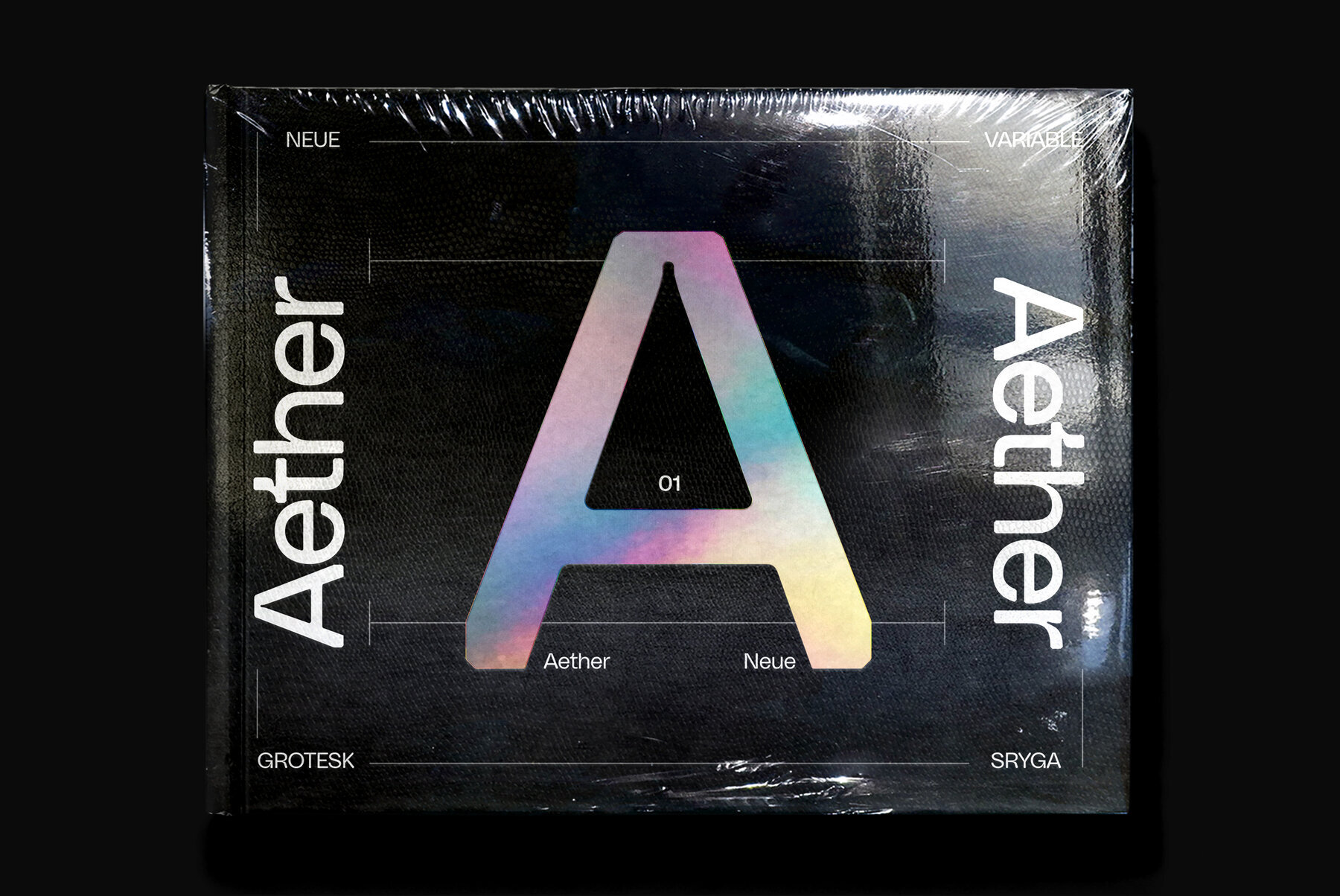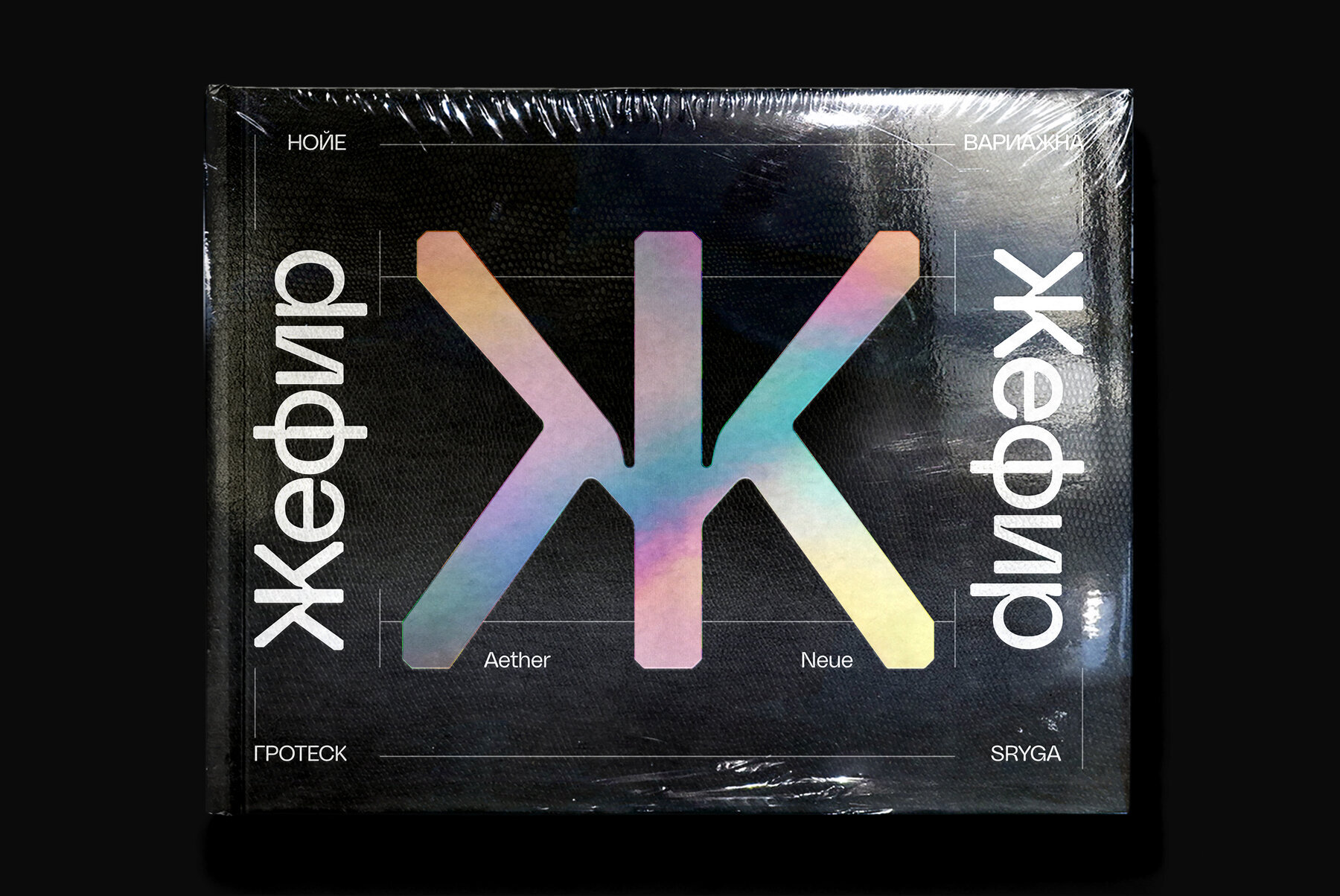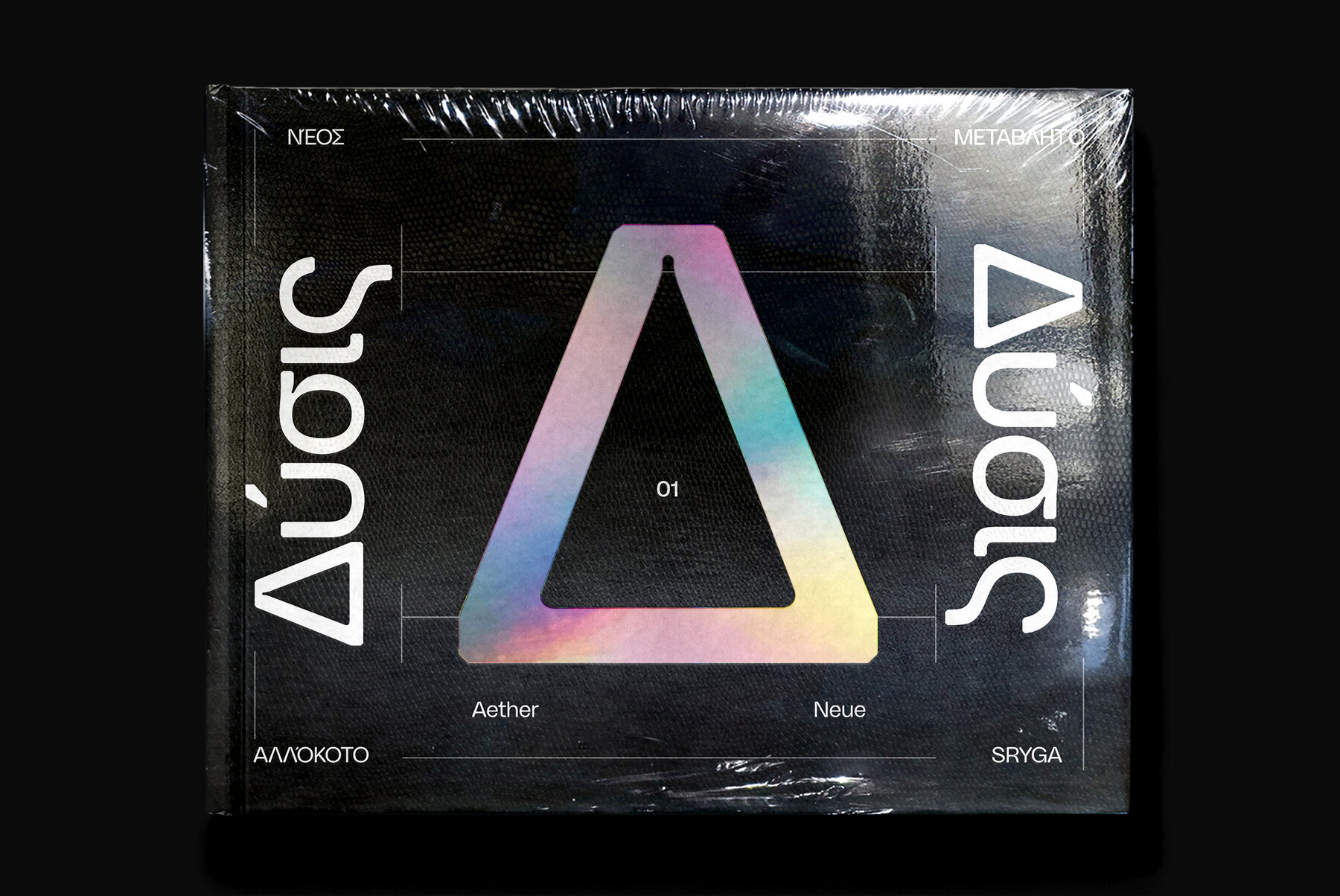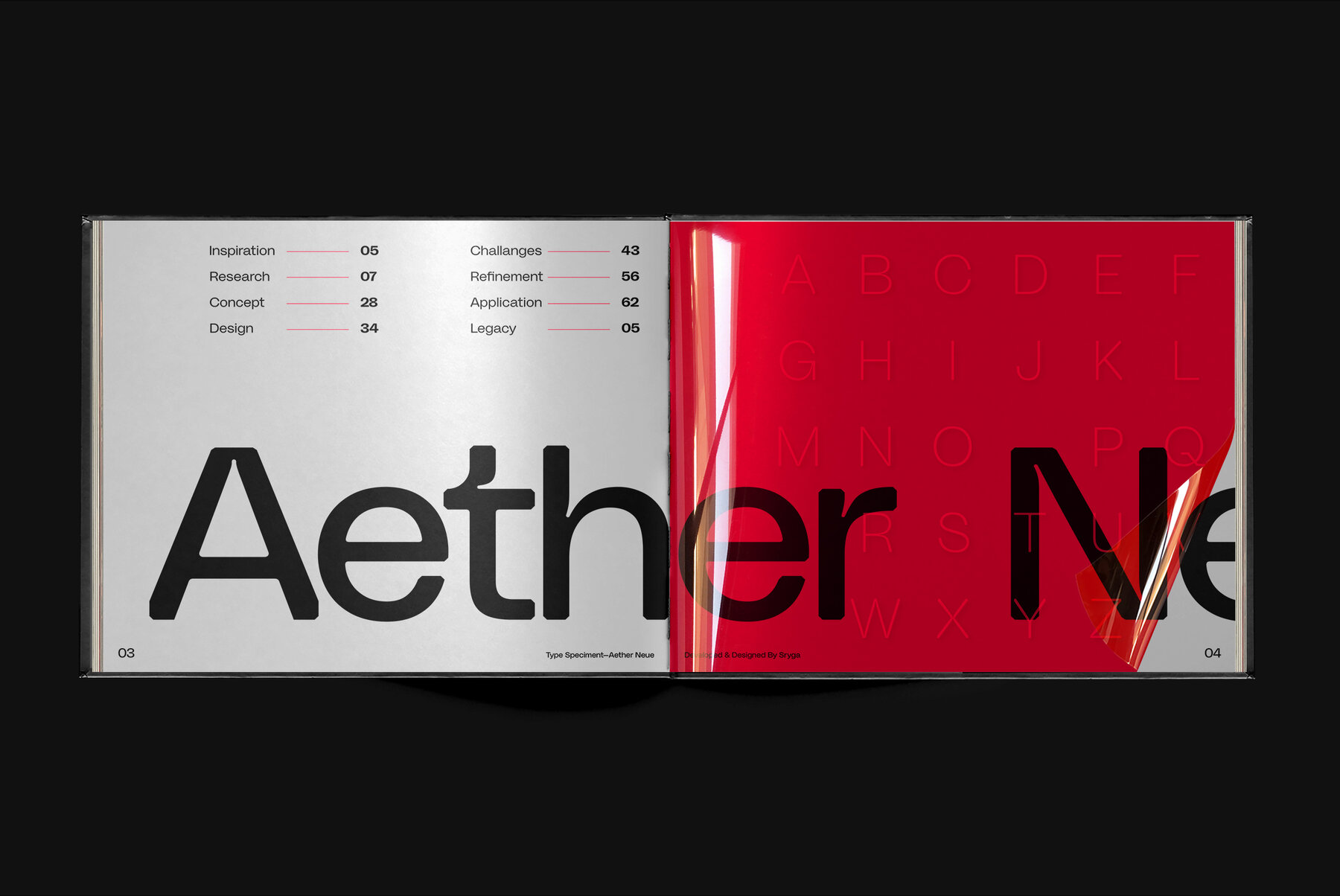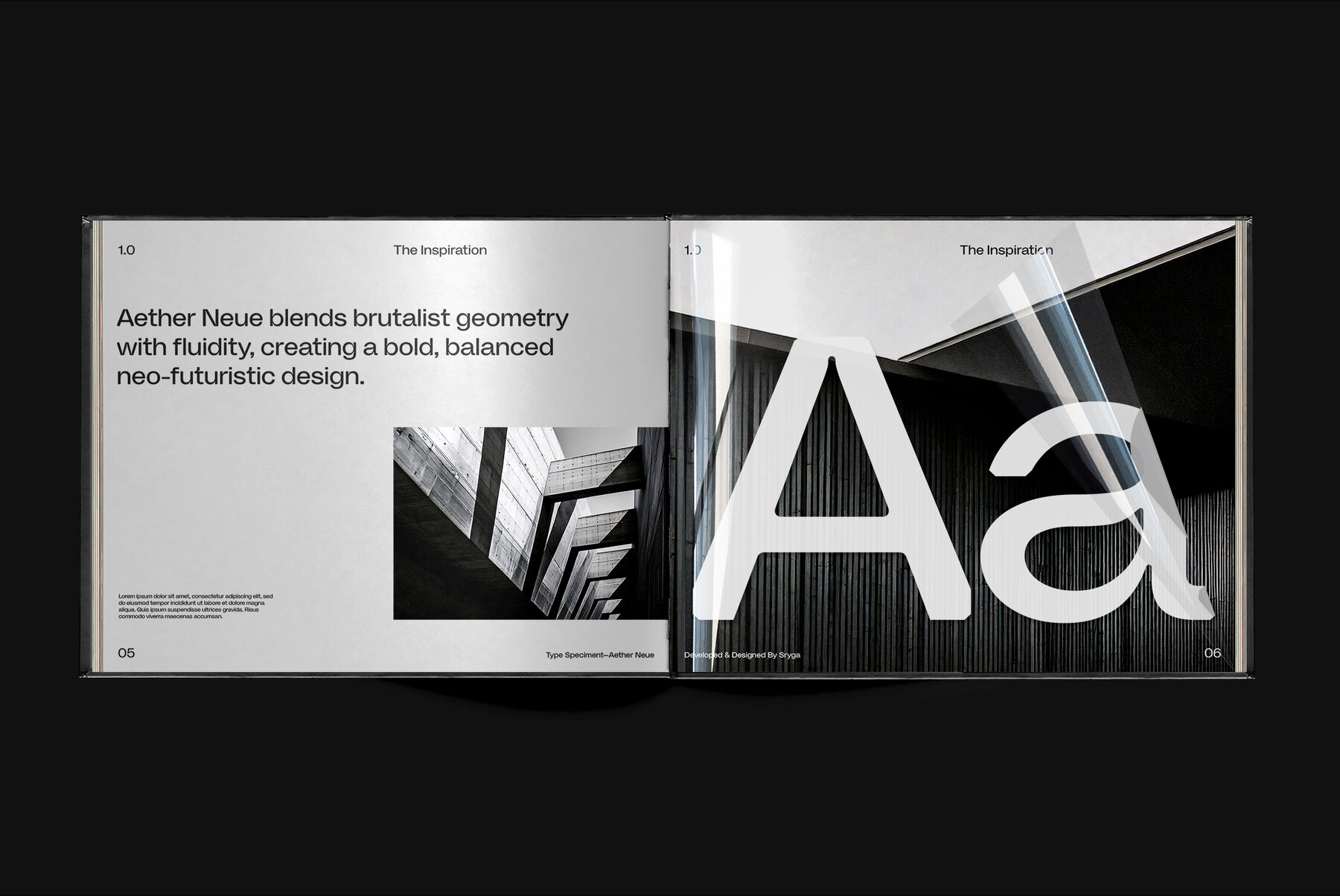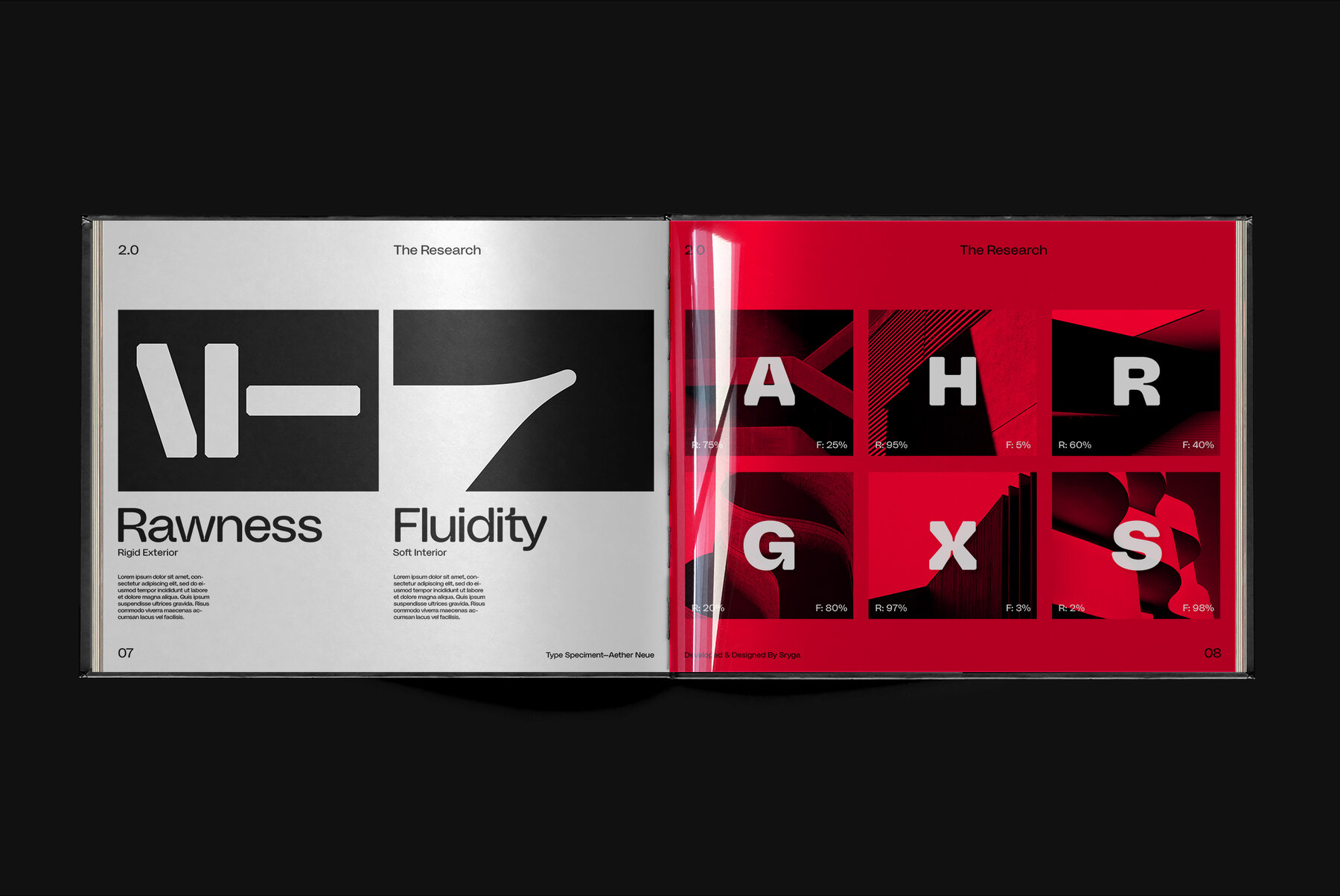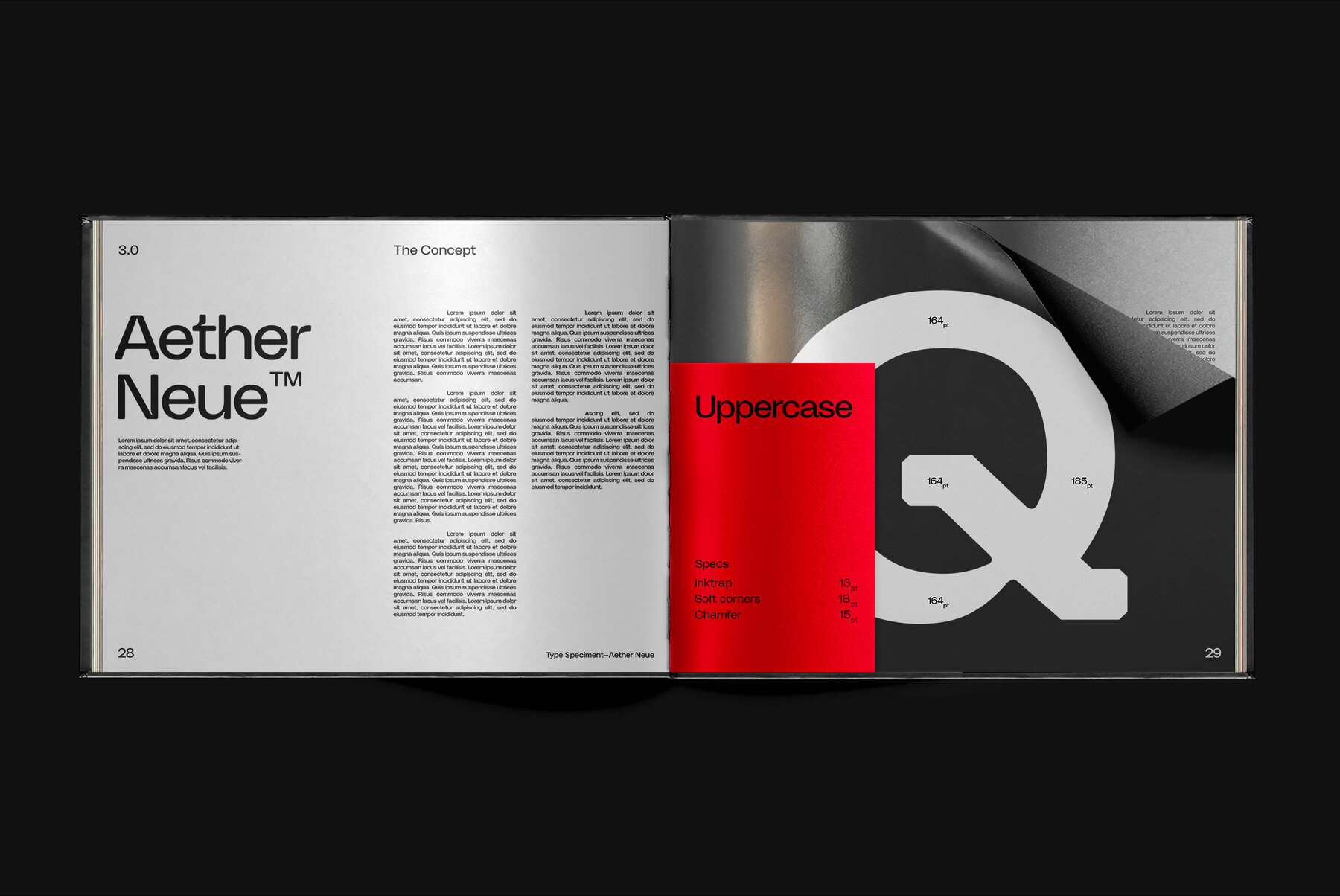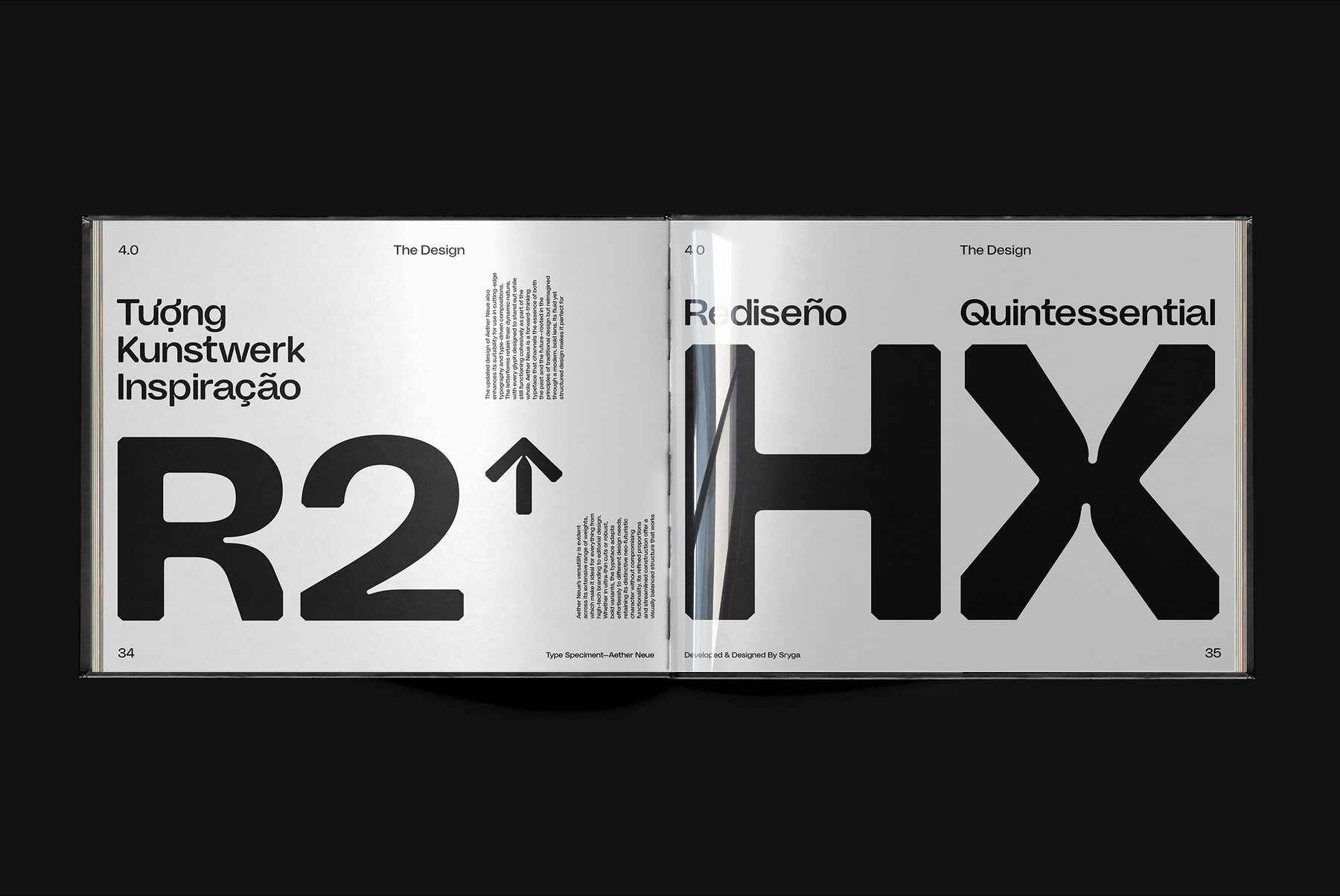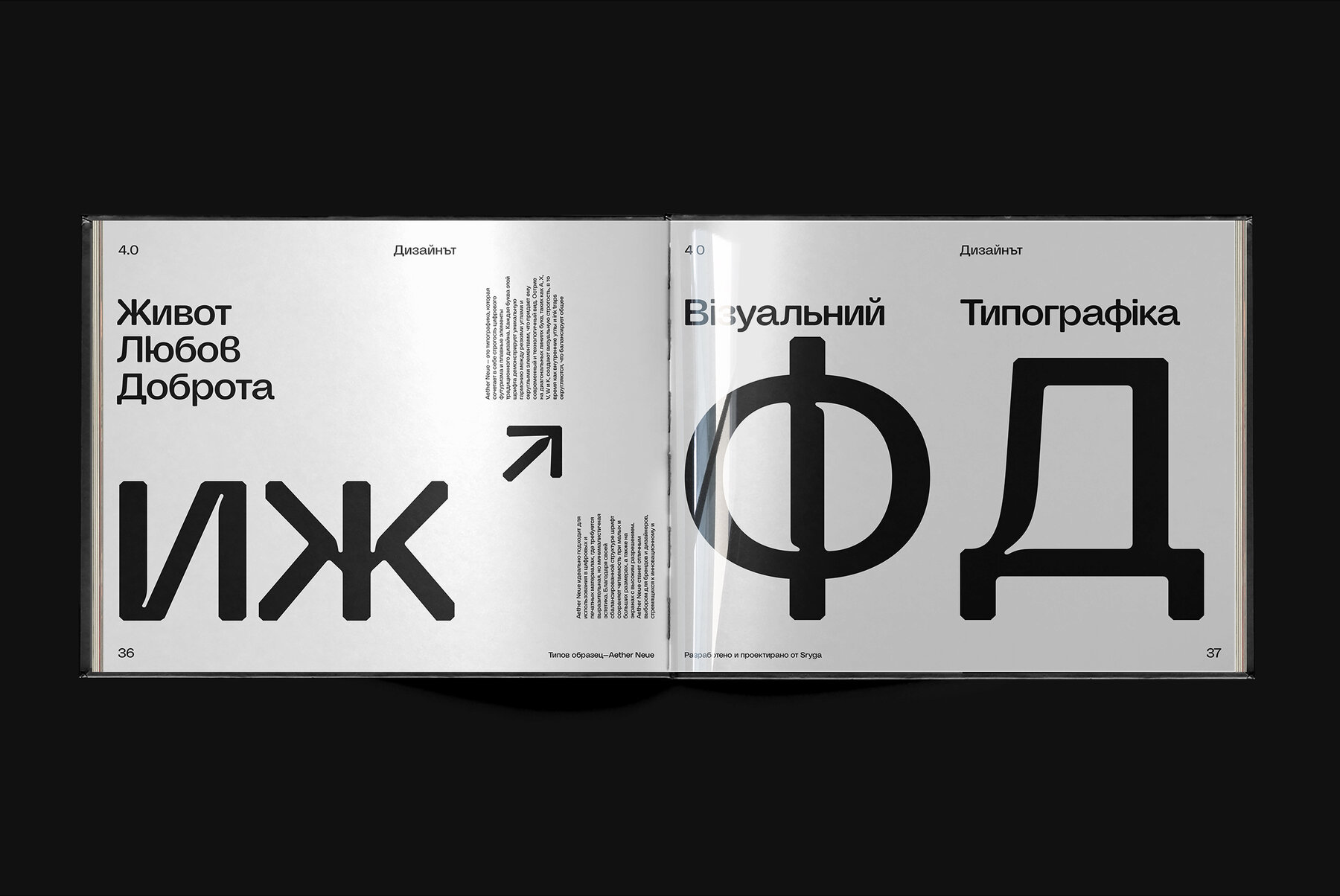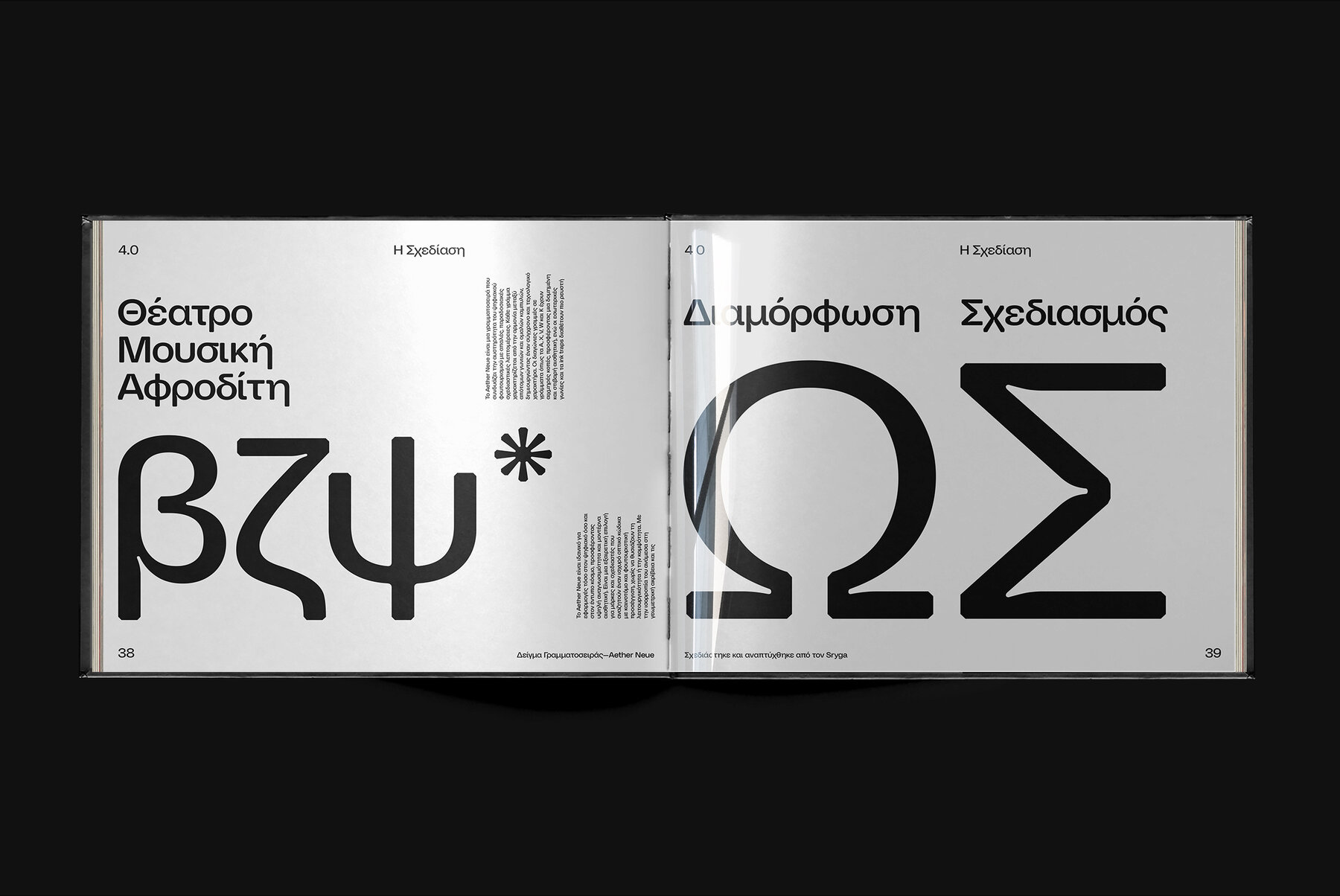
Aether Neue Font
Aether Neue is a refined evolution of the original Aether, meticulously crafted to push its digital neo-futuristic aesthetic further while enhancing versatility and legibility. The design process focused on refining the squarish-round letterforms and perfecting the interplay between sharp chamfered edges and fluid, rounded ink traps. Diagonal elements like A, X, and K have been re-engineered with more precision, creating a stronger geometric rhythm. The inside corners were softened slightly to improve balance and readability, especially at smaller sizes. Aether Neue captures a seamless fusion of rigidity and fluidity, embodying a harmonious blend of futuristic constraints and dynamic flow.